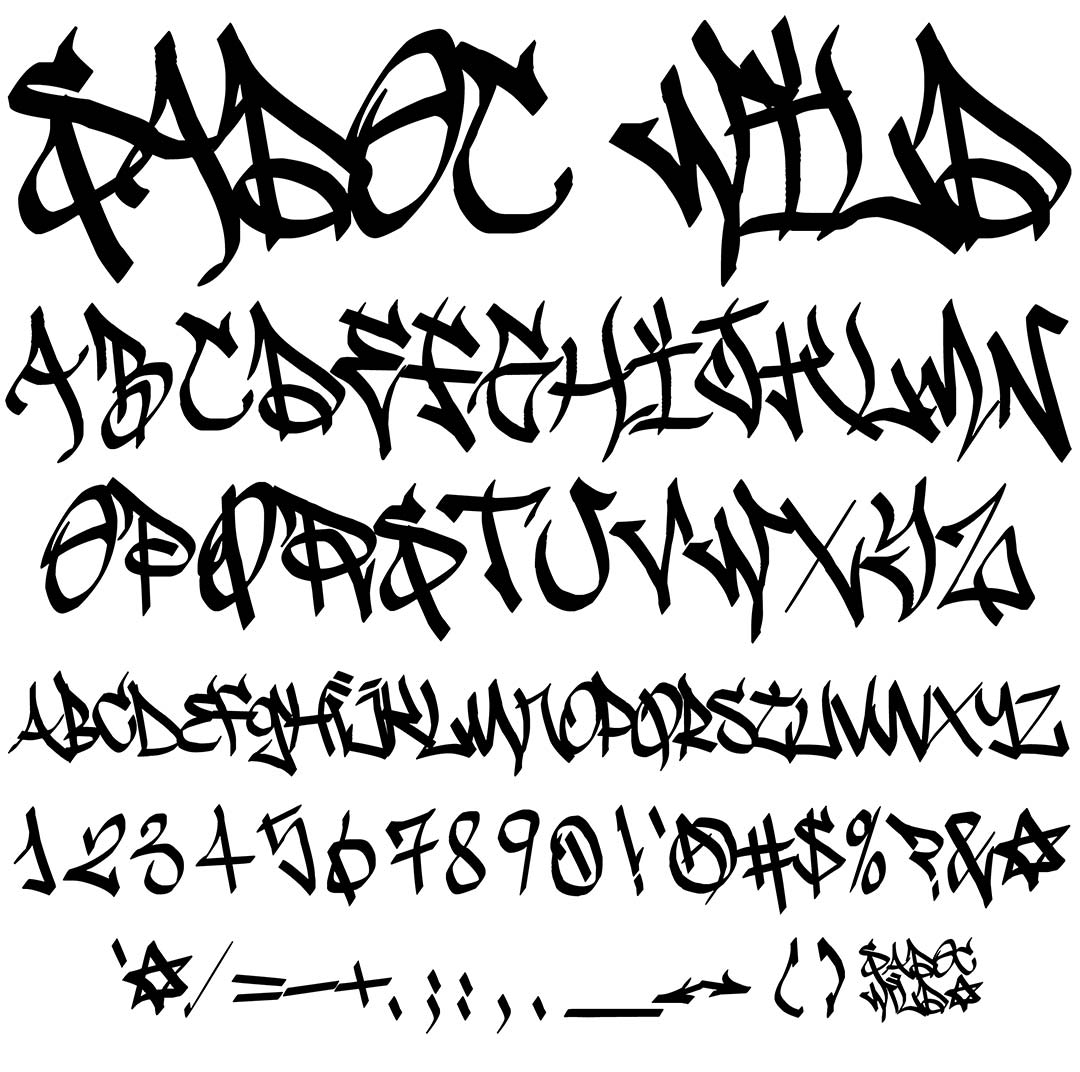
Sadoc Wild
Sadoc Wild Graffiti Alphabet
Sadoc Wild Graffiti Font Family
Another of Berakas tag style fonts. This digitally generated, all caps fonts has two unique alphabets as well as numbers and basic punctuation & symbols. Sadoc "Wild" as in "Wild Style" which can apply to tags as well as pieces.